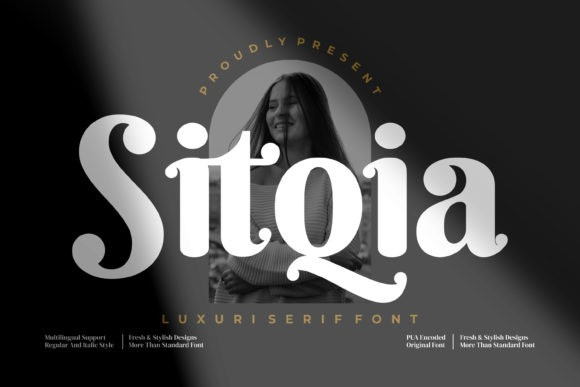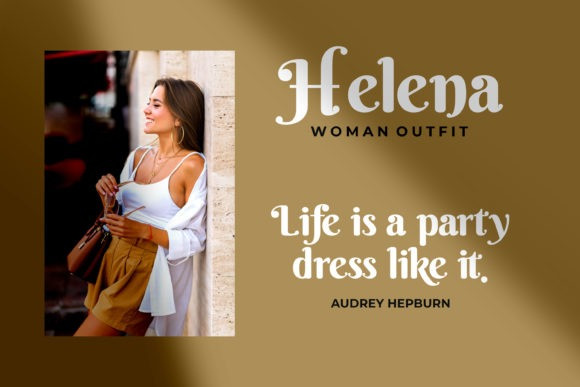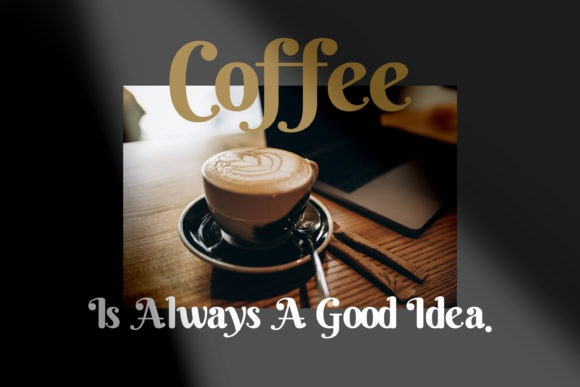
Sitqia Font
Sitqia is a luxurious, bold and trendy serif font. Fall for its outstanding style and use it to create gorgeous wedding invitations, beautiful stationary art, eye-catching social media posts, and much more!